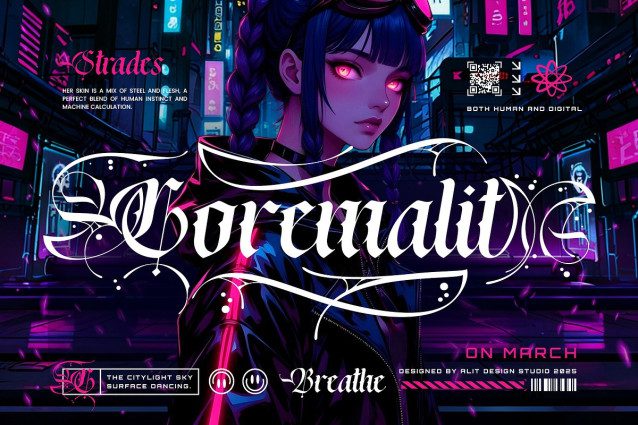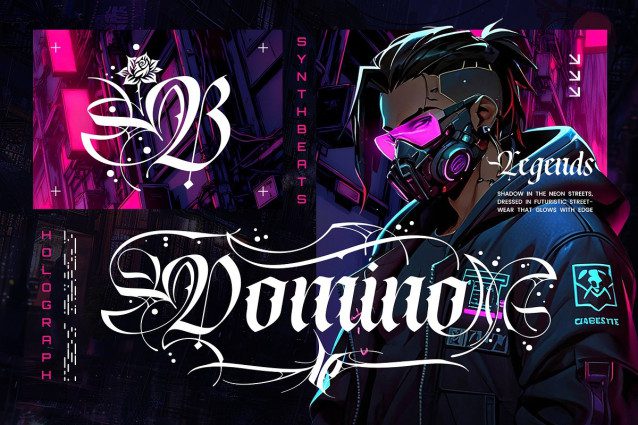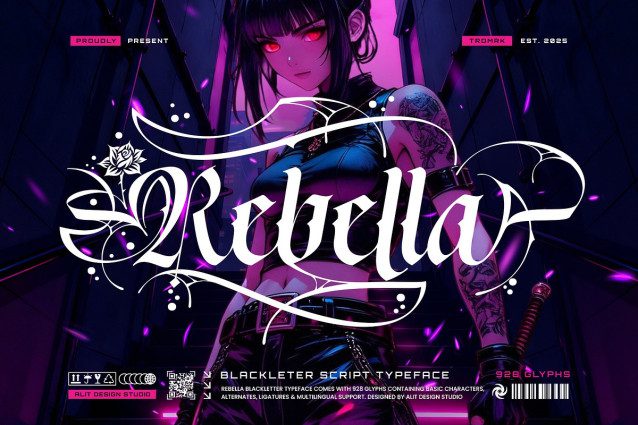
Rebella Blackletter Font
Rebella Blackletter Font, a stunning blackletter script designed by Alit Design Studio. Rebella captures the soul of the streets, blending the timeless elegance of calligraphy with an edgy, cyberpunk aesthetic.
What sets Rebella apart are its unique, dynamic flourishes. Each letter is crafted with precision, but the real power lies in its massive library of alternates. Dive into over 928 glyphs and discover a world of creative possibilities:
Liquid & Dripping Swashes: Give your text a fluid, “inked” look with alternates that drip and flow like wet paint or digital rain.
Intricate Rose Motifs: Weave symbols of beauty and rebellion directly into your words. Select alternates adorned with beautifully illustrated roses, perfect for adding a touch of “splatter rose” gothic romance.
Endless Stylistic Sets: Rebella comes packed with numerous stylistic sets, allowing you to customize your text from a clean, sharp blackletter to a fully embellished masterpiece with elaborate tails, thorns, and flourishes.
Full Creative Control: With full support for ligatures, multilingual characters, and a vast array of alternates, you have complete control to craft a truly unique and custom logo or title.